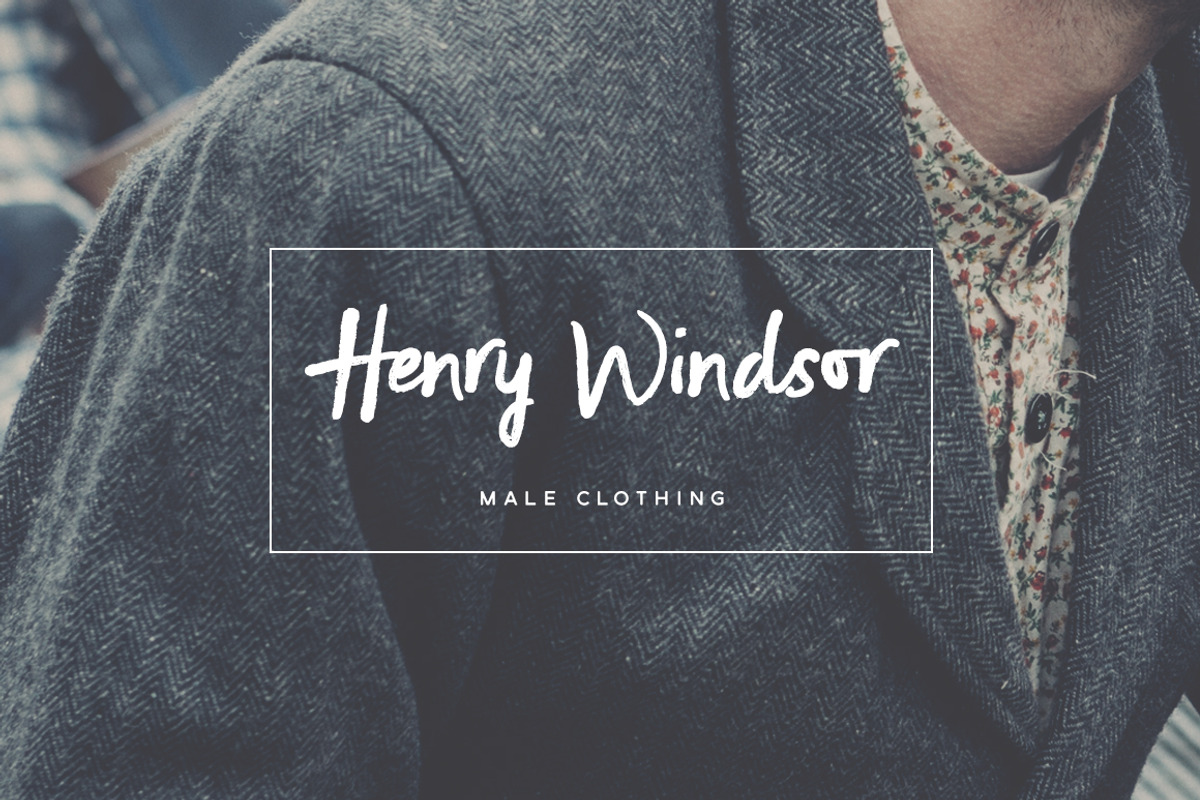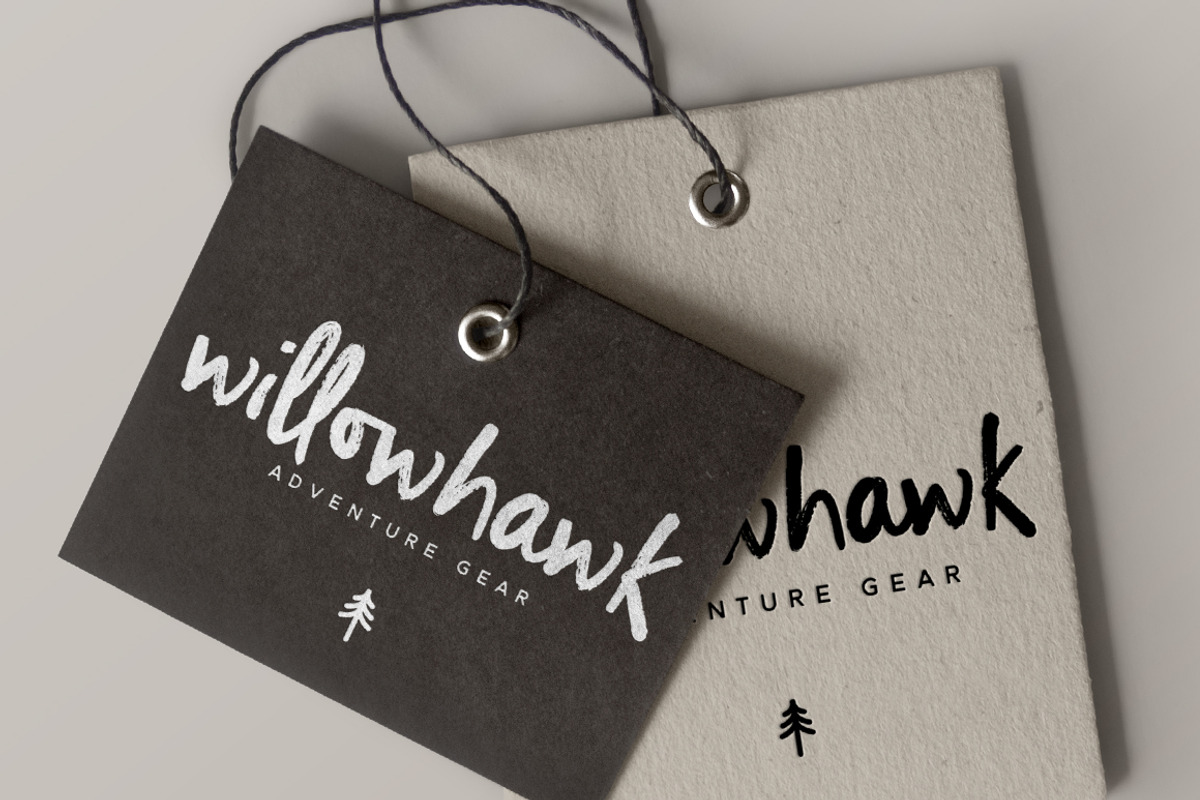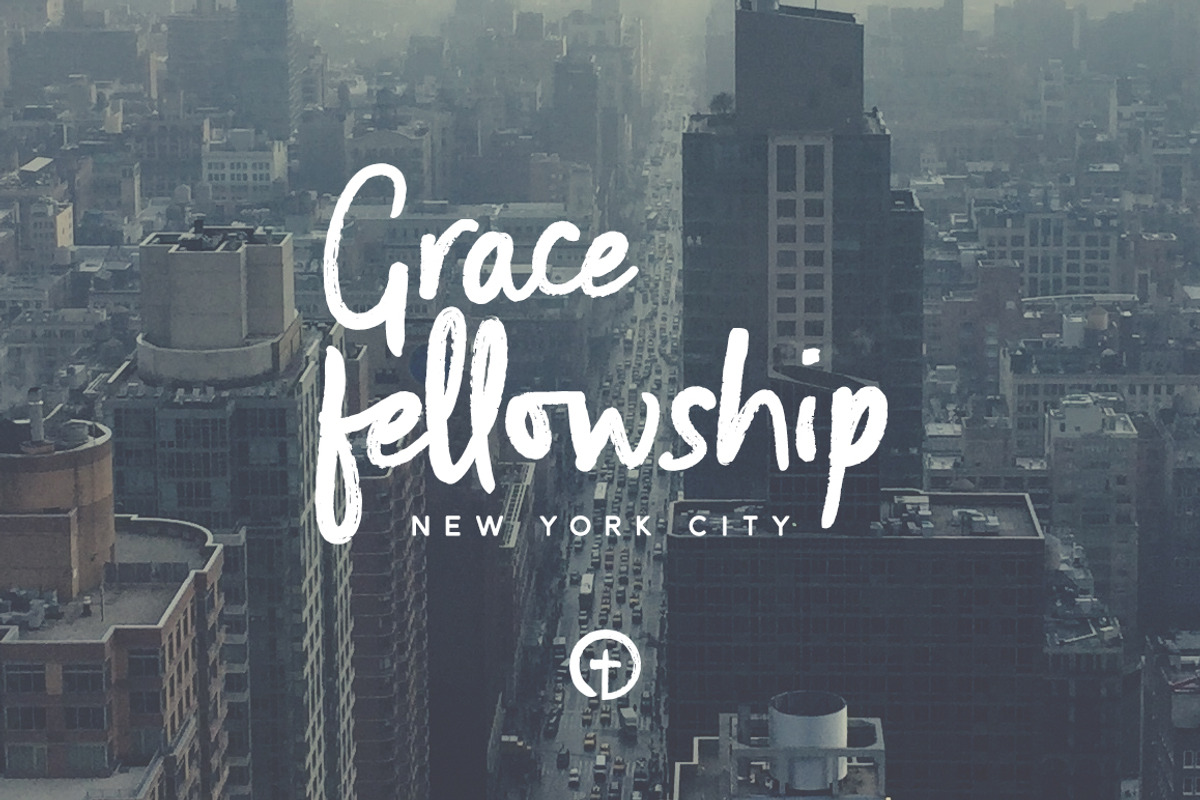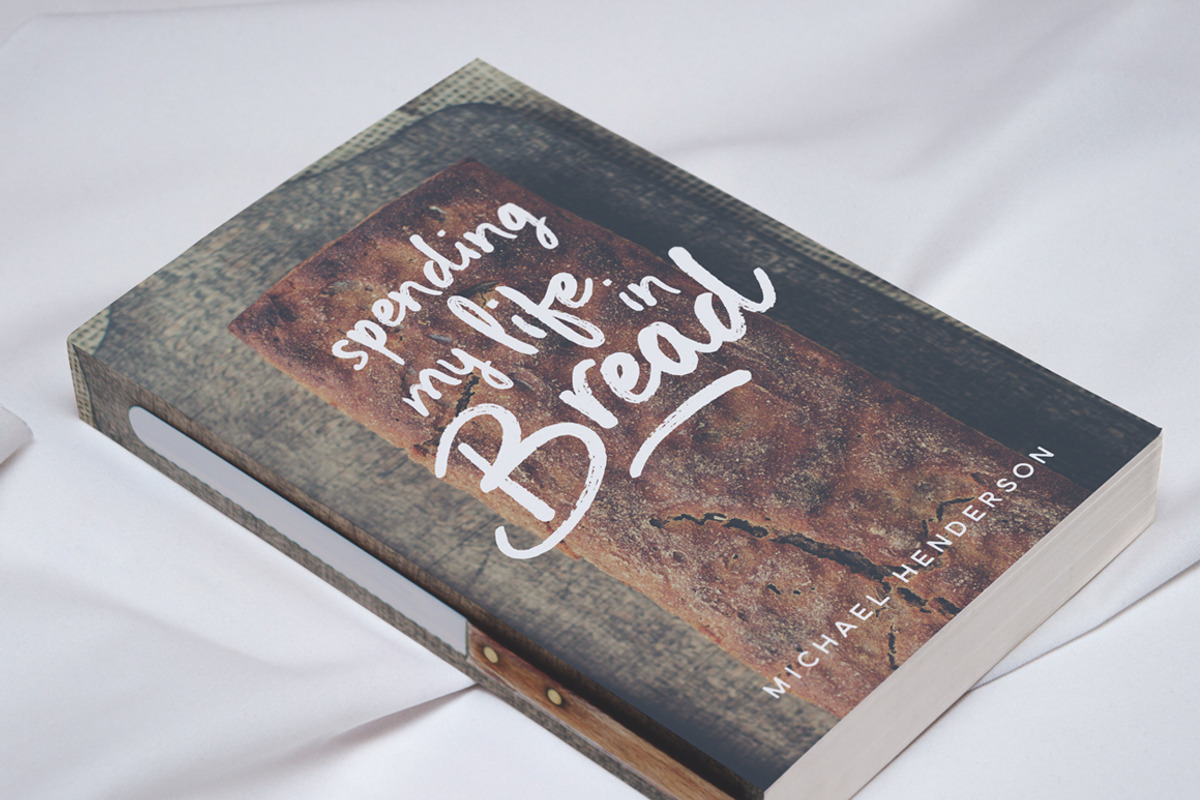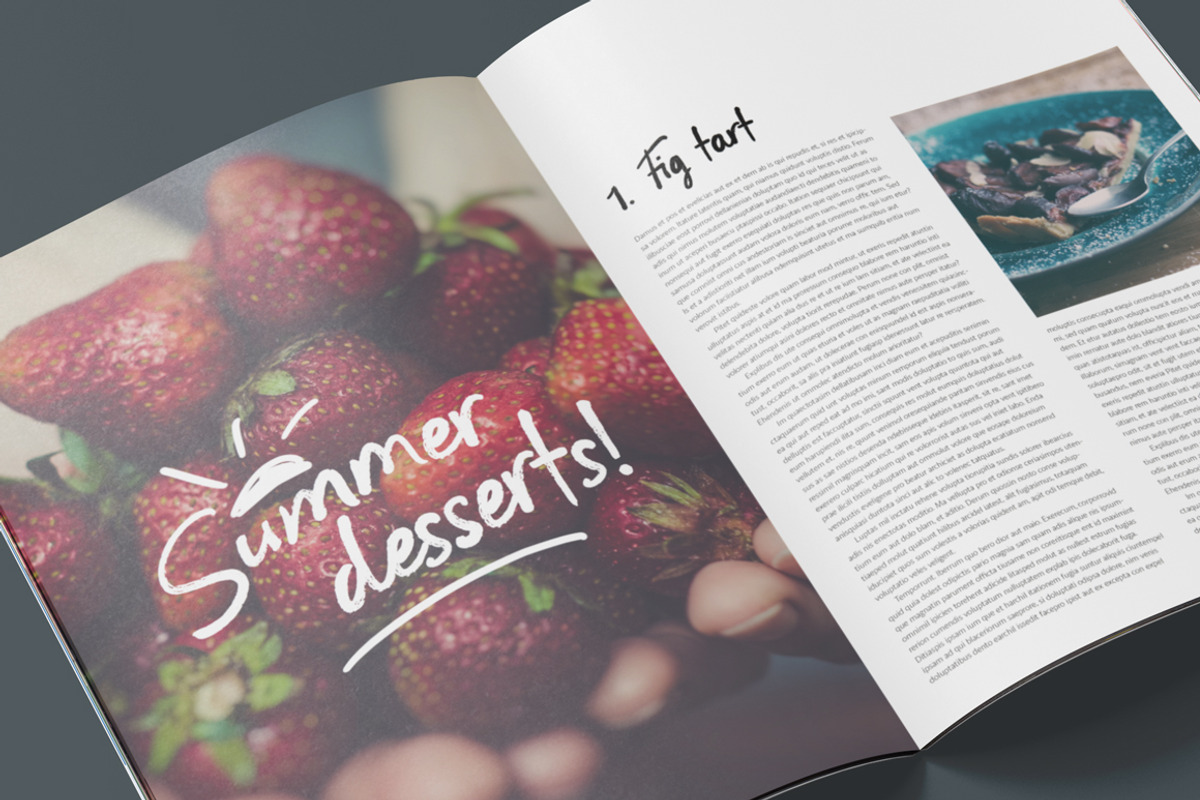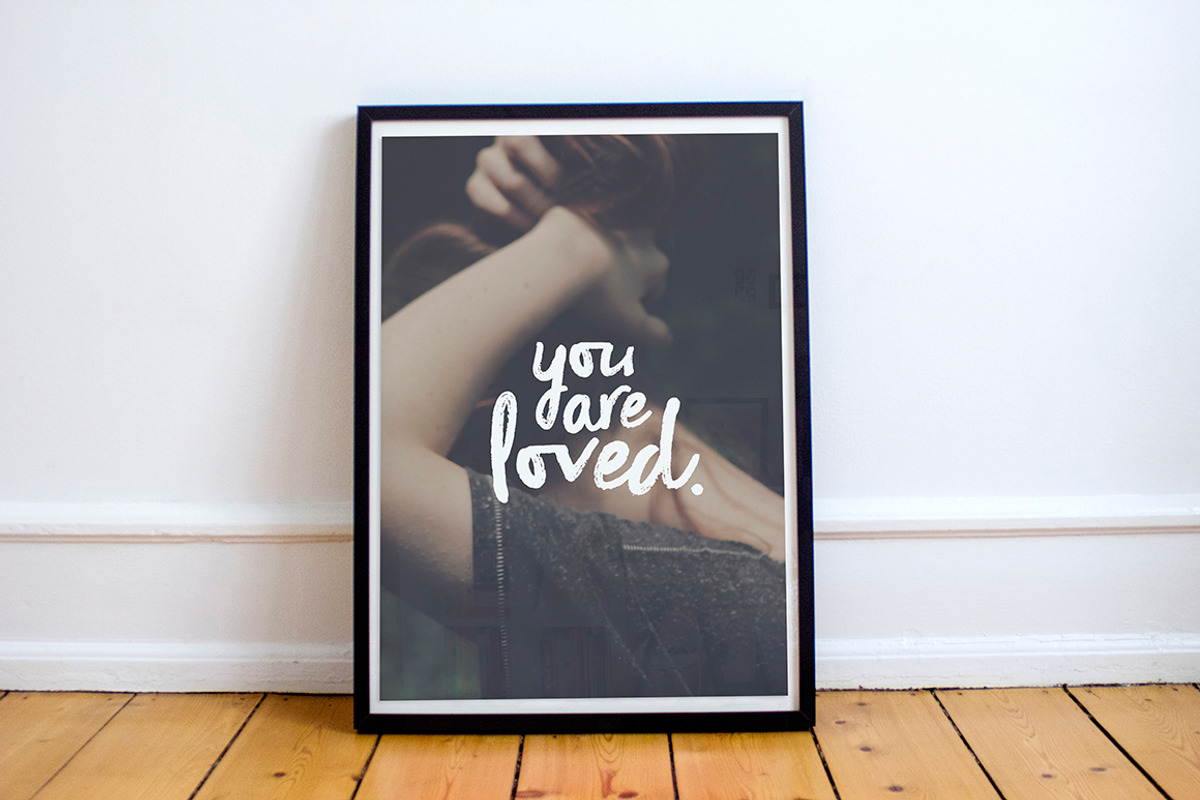
Outbound - Signature Font
Outbound - Signature Font by Ian Barnard is a font selected for branding, posters, packaging, typography.
- Swashes
- Plus with the opentype feature turned on in your favourite editing programme you get access to the double letter ligatures.
Why Outbound - Signature Font is worth a look
Outbound - Signature Font by Ian Barnard fits naturally into Branding, posters, packaging, typography.